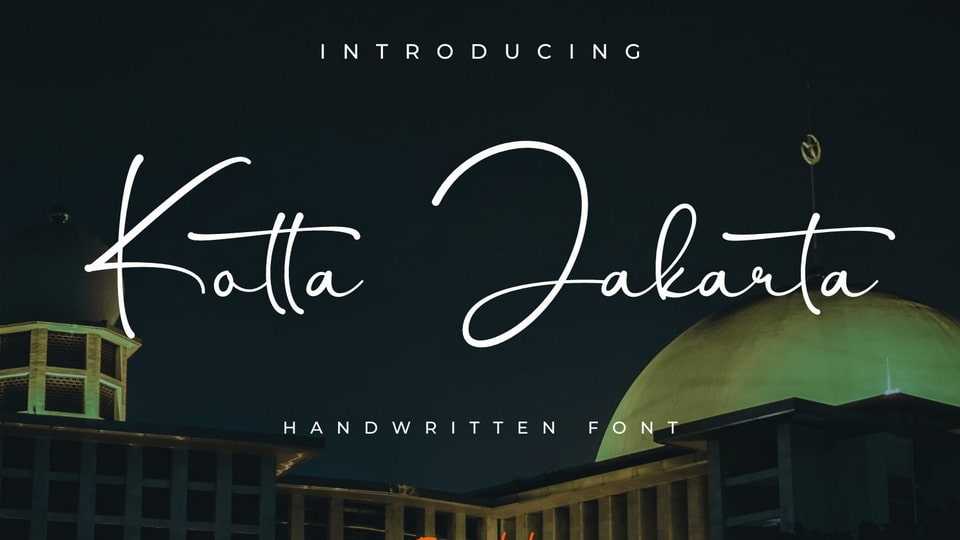
Download Kotta Jakarta font, a casual signature style handwritten typeface, made naturally with precision, perfect for branding, websites, and editorial designs.